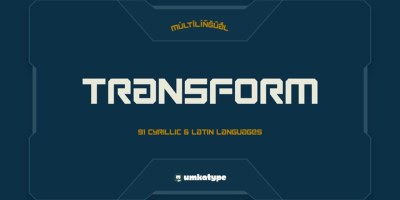
Transform Font
Transform – A Display Font : Transform is a carefully crafted display font. It has Extended Latin and Cyrillic characters. It created for poster, web, brand and social media designs.